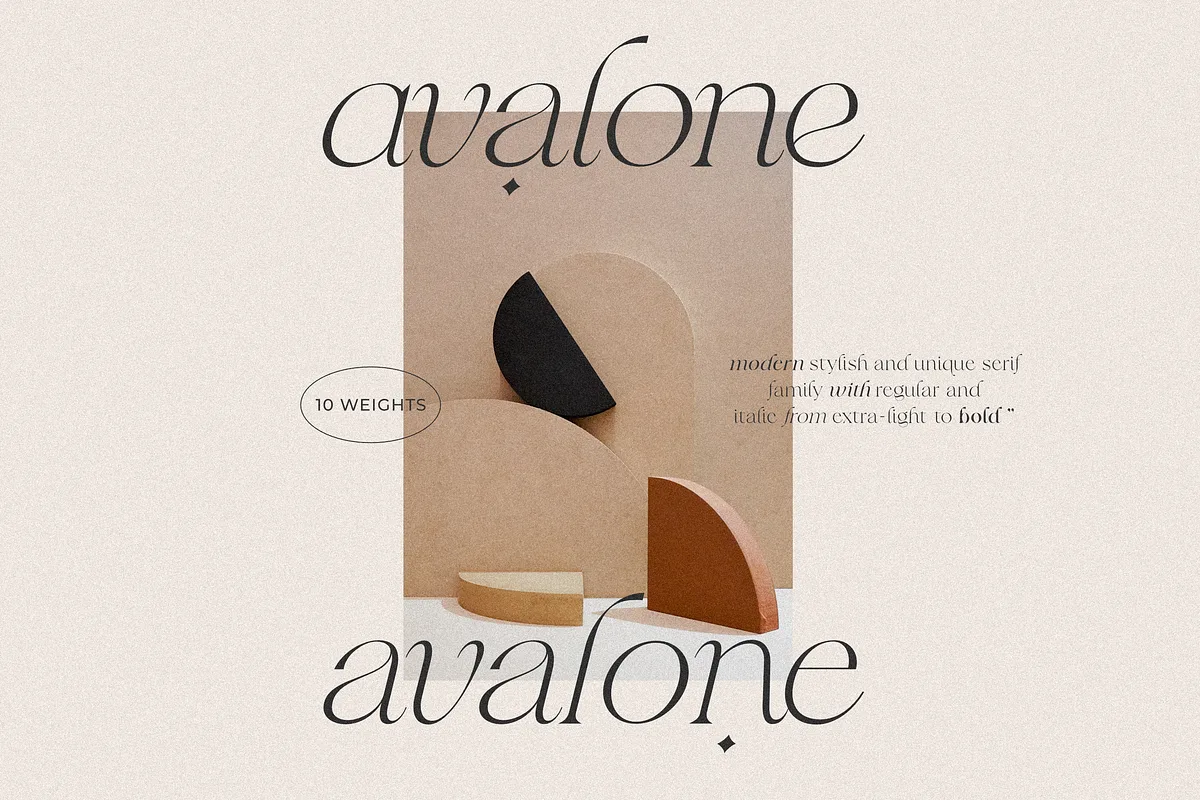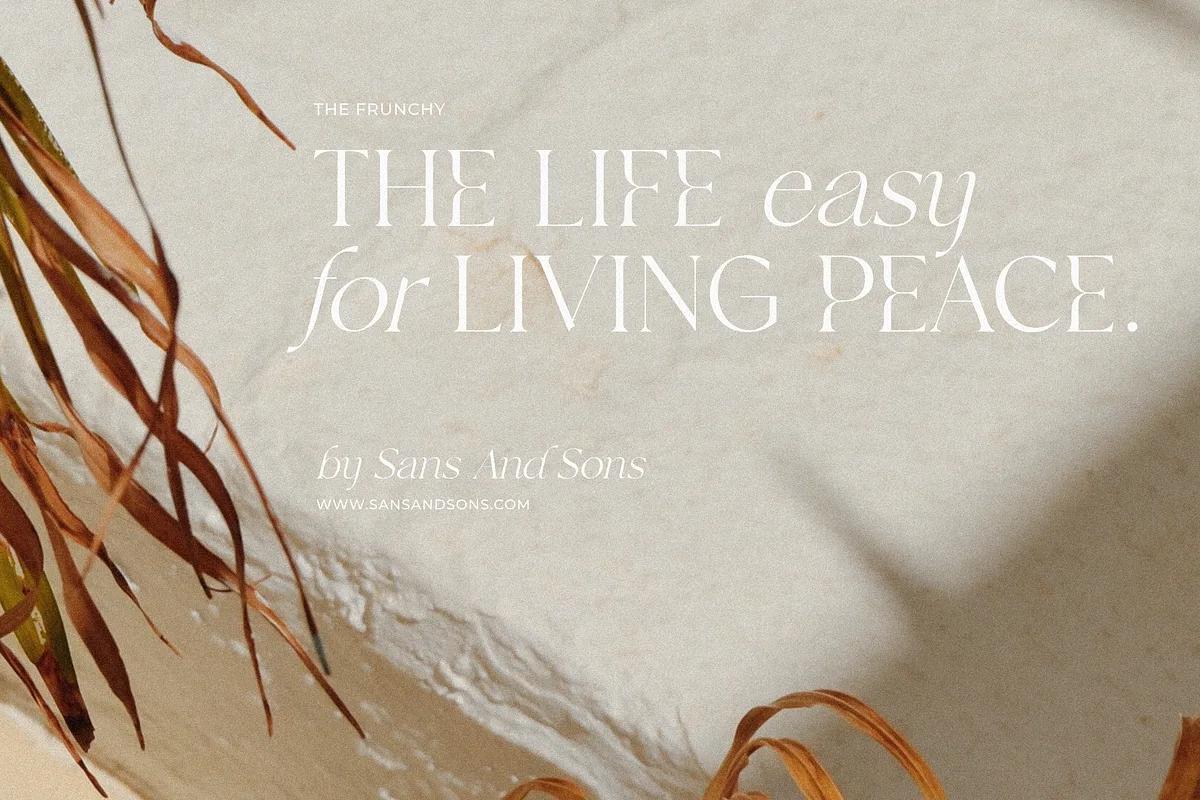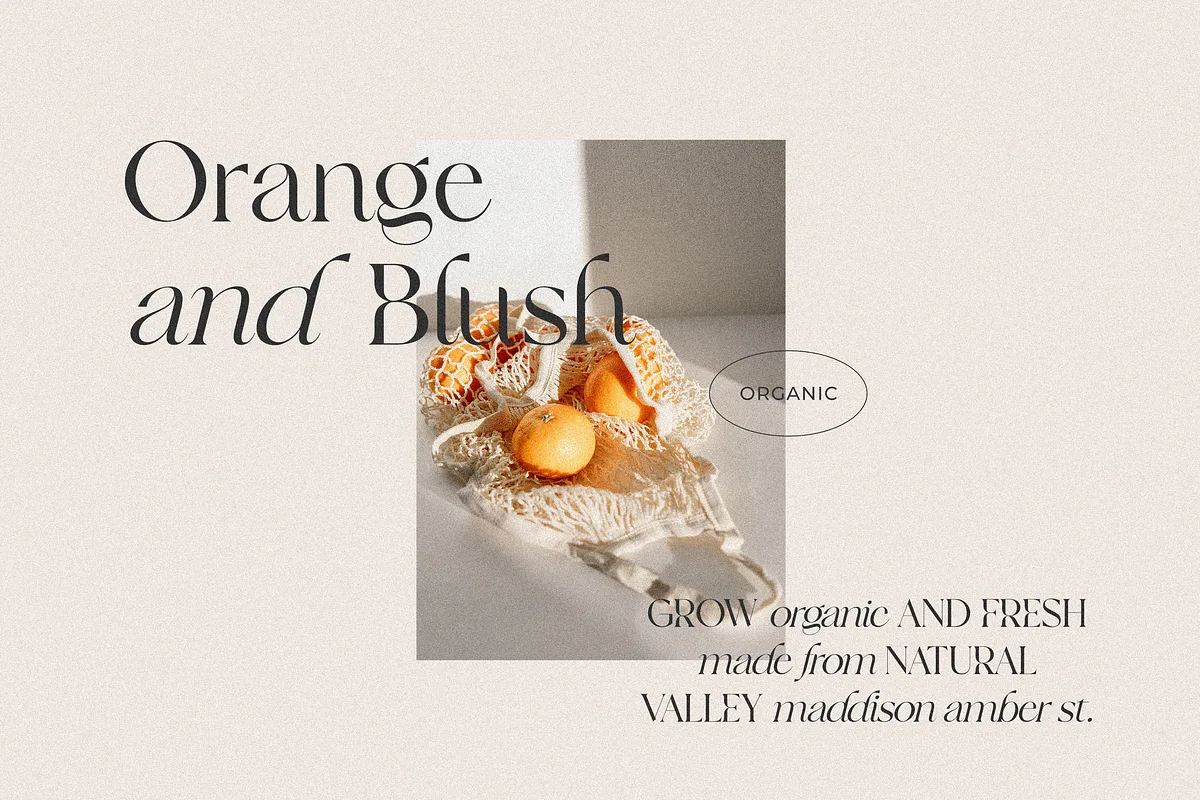
Frunchy Sage – Modern Serif Font Family by Sans and Sons. Introducing our new “Frunchy” Modern Serif Family with Elegant style this is perfect for branding, logos, invitation, masterheads and more.
- Alternates